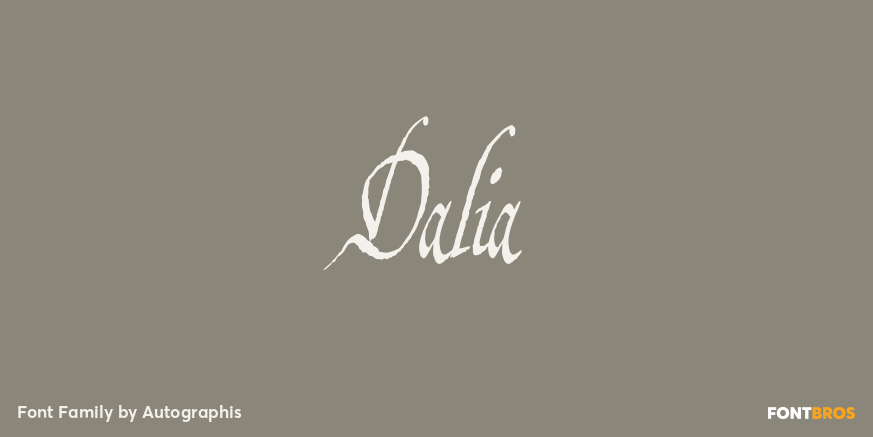
Dalia
About Dalia
Dalia is a joining high-contrast-script, with extreme ascenders and descenders for added personality; some descenders are looping into each other and under its neighboring letters. The font can be used together (mixed) with Constanza and Elisara.